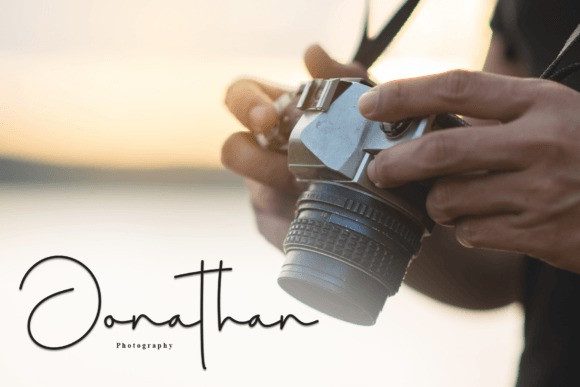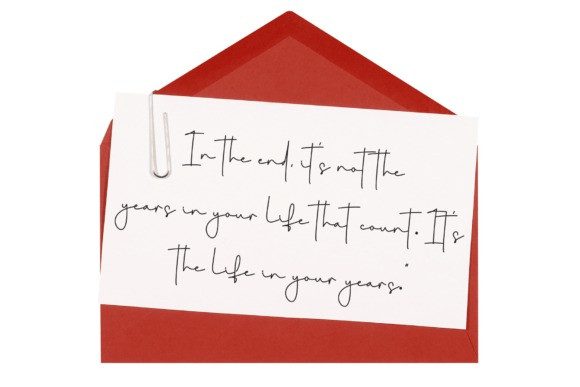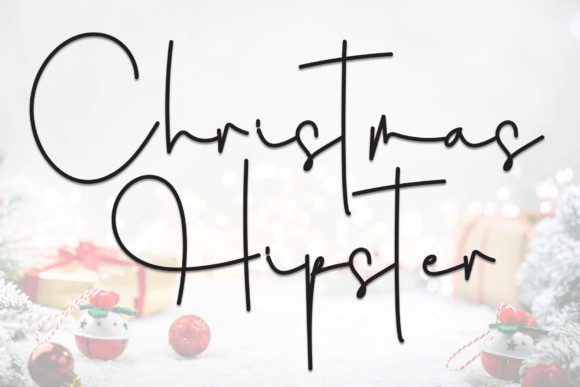
Christmas Hipster Script Font
Christmas Hipster Script Font has a fun, slightly messy, handwritten style. It’s casual and cool, perfect for festive designs that need a relaxed and modern touch.